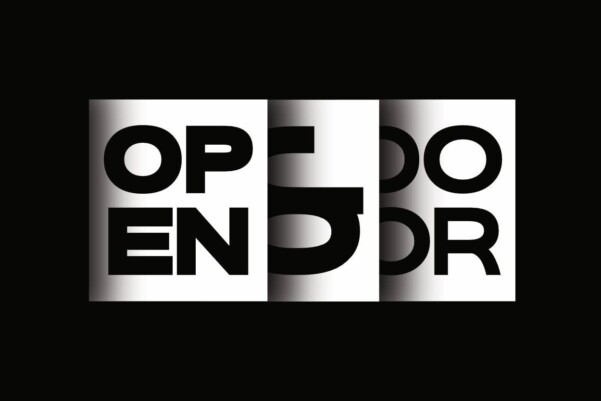
Danson Sans Font Family
Danson Sans Font Family, is a sans serif typeface family of 10 Fonts perfectly suited for your project, e.g. for print, advertising, campaigns, posters, book titles, etc.